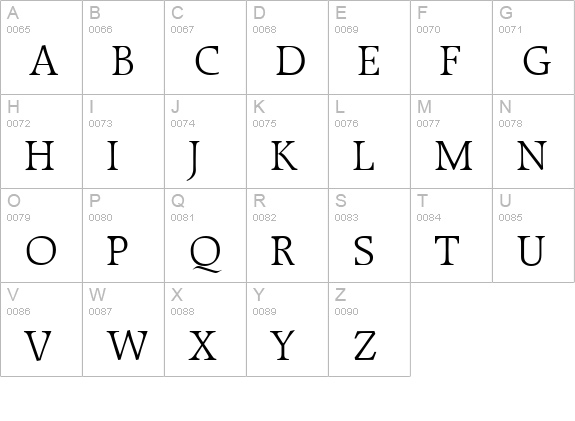
RaleighSerial-Light-Regular is a refined, elegant variant in the RaleighSerial typeface family \xE2\x80\x94 well suited to elegant body text, refined sub-headings, and luxury branding.
RaleighSerial-Light-Regular is a modern and elegant font that exudes sophistication and professionalism. With its clean lines and simple yet refined design, this font is perfect for a wide range of projects, from branding to editorial design. The light weight of the font adds a touch of delicacy and grace to any text, making it versatile and easy to read. The best part about RaleighSerial-Light-Regular is that it is available for free download at FontsMarket.com. This means that you can easily access this high-quality font for your personal or commercial projects without any cost. Don't miss out on the opportunity to enhance your designs with RaleighSerial-Light-Regular and take advantage of its timeless appeal.